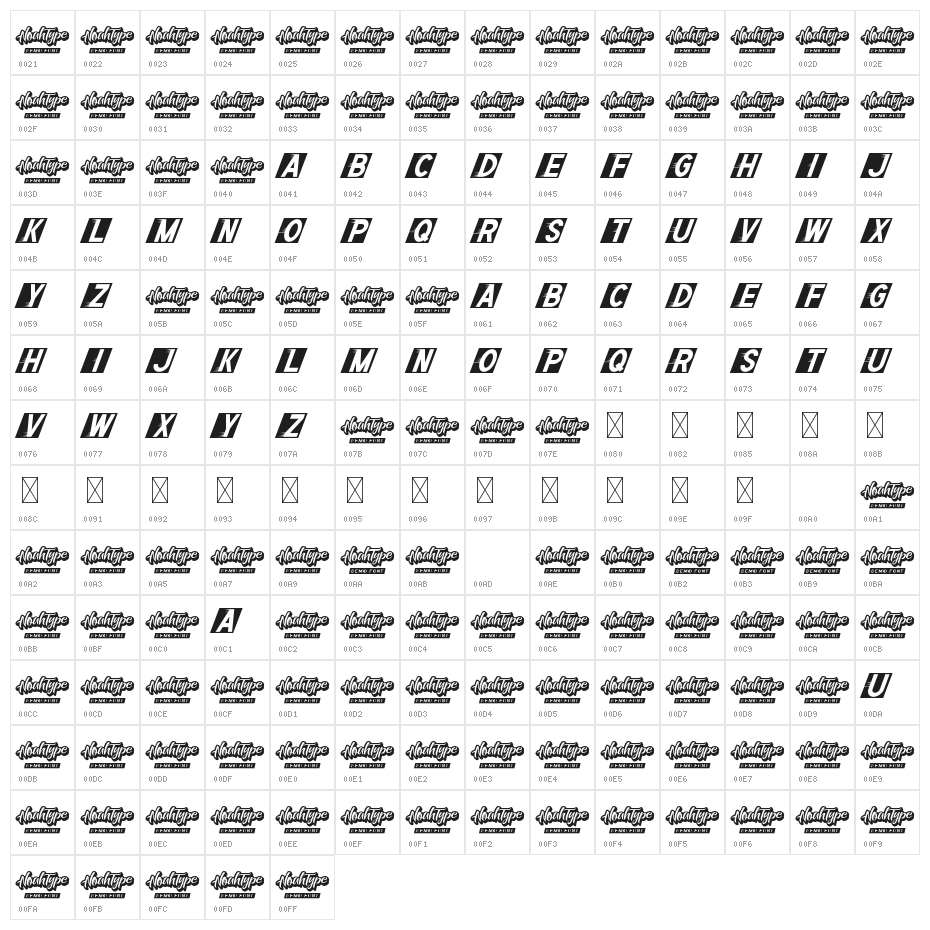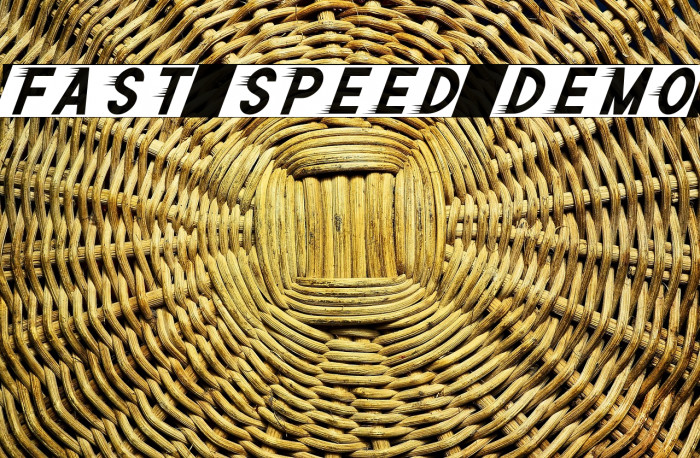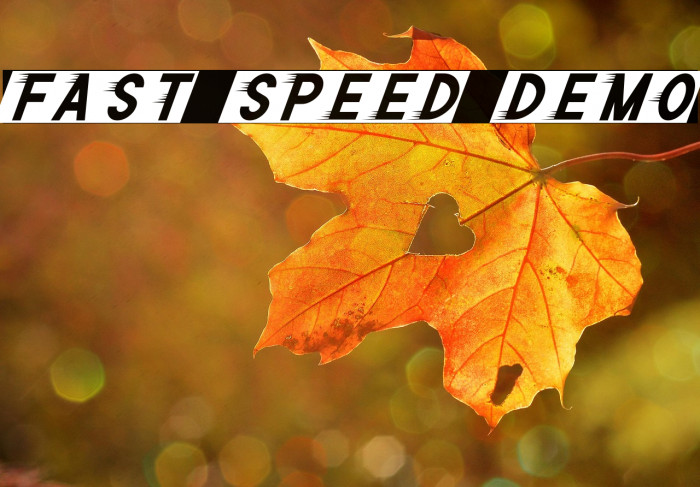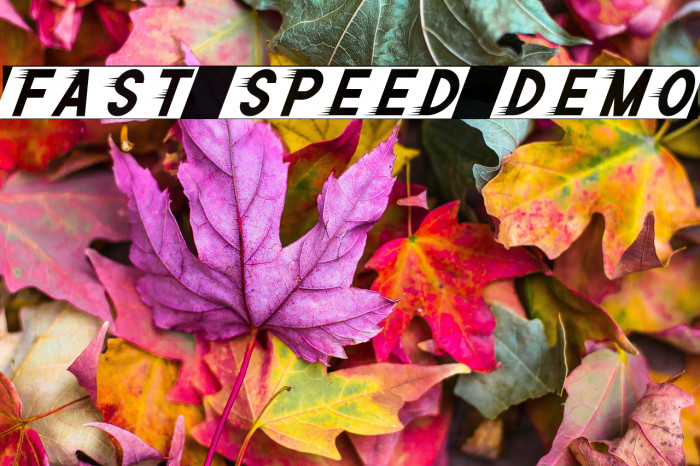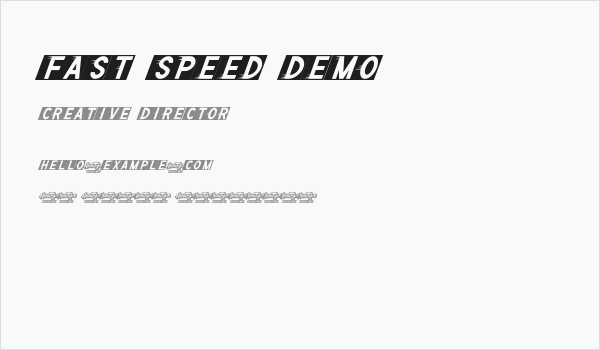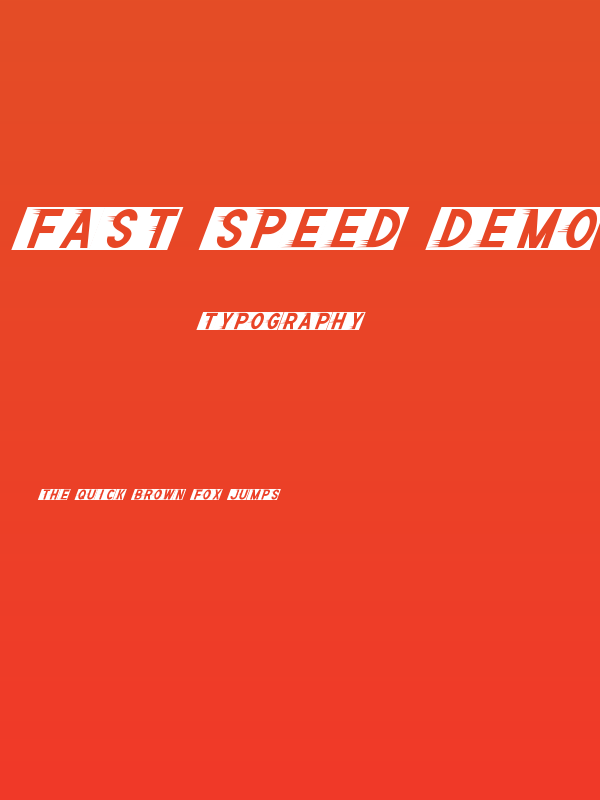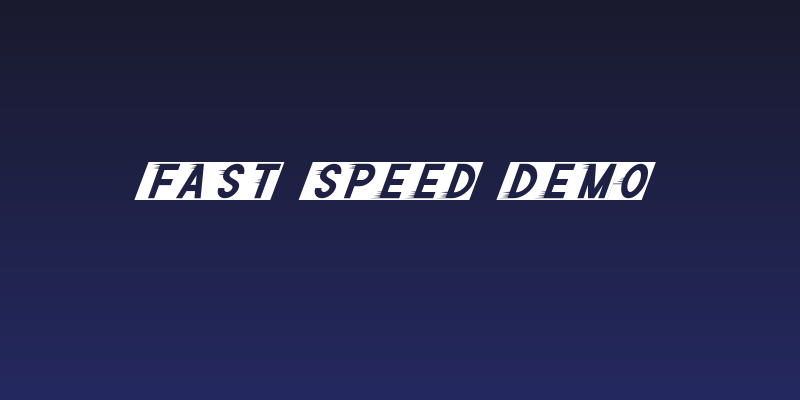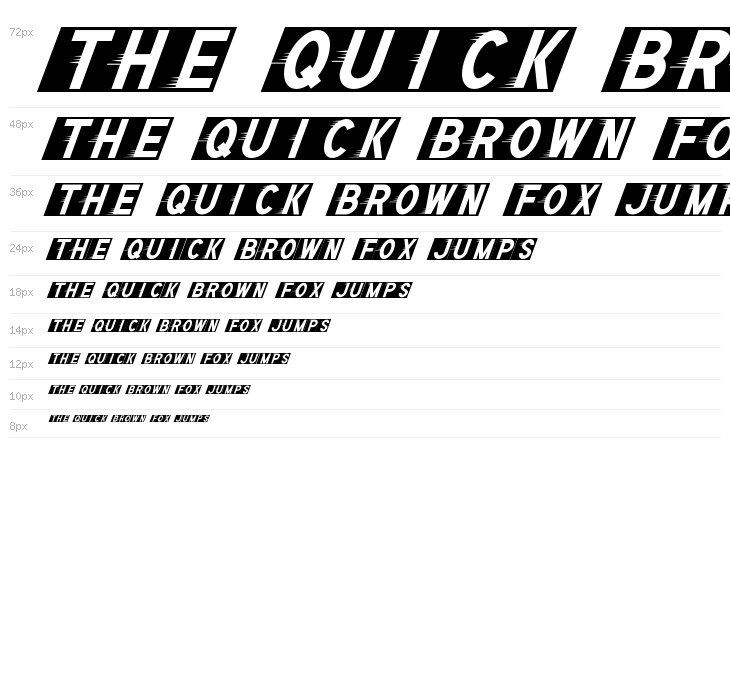
Fast Speed Demo Font
This font exudes a dynamic and energetic style, characterized by its bold and italicized letterforms. The design incorporates sharp, angular cuts and slashes through the characters, giving the impression of speed and movement. The uppercase letters are particularly striking, with a strong presence that commands attention. The lowercase letters maintain the same energetic style, ensuring consistency across different text cases. The numerals and special characters are designed to match the overall aesthetic, making this font suitable for projects that require a sense of urgency or excitement.
| Proposed Projects | Ideal for sports branding, racing event posters, dynamic logos, and action-themed designs. |